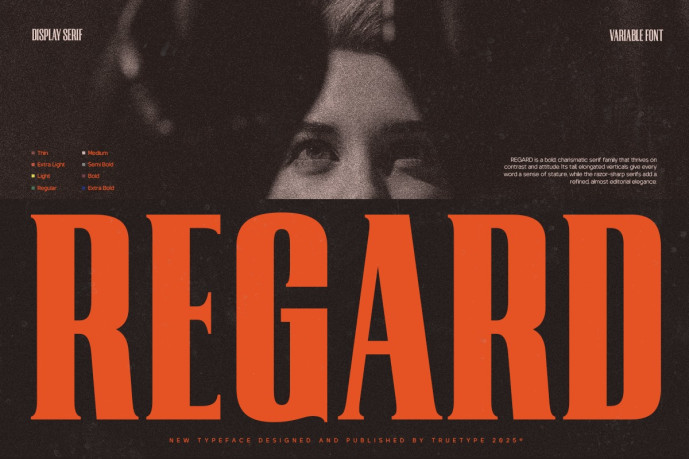
Regard Font
Regard Font is a striking sans-serif display font with high impact and exceptional clarity. Constructed with high proportions and tight curves, it brings intensity and elegance to any design it graces.
With its condensed structure, clean vertical lines and sustained rhythm, Regard Condensed is perfect for posters, logos, headlines and branding work that demands attention.
Whether you’re creating for fashion, music, media, or culture, Regard Condensed offers a powerful tone. It’s bold without being brutal, clever without being overly ornate: a typeface that knows how to lead the way.